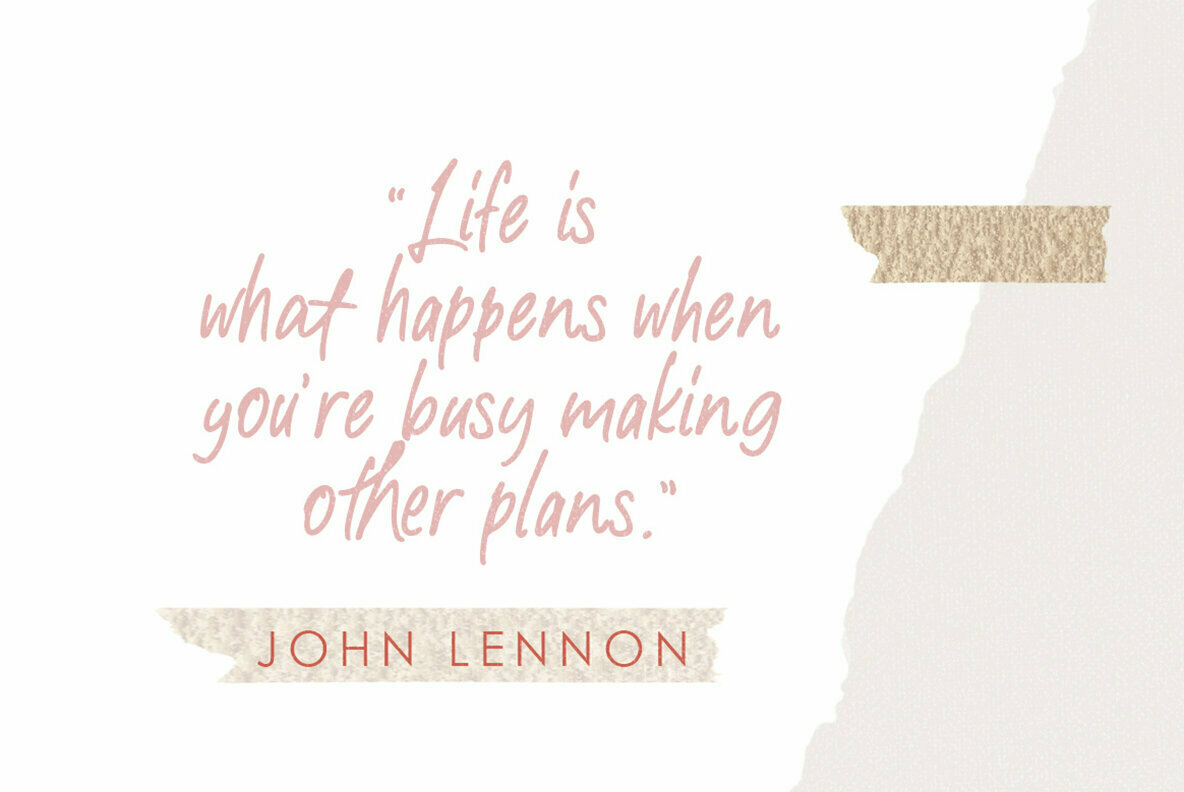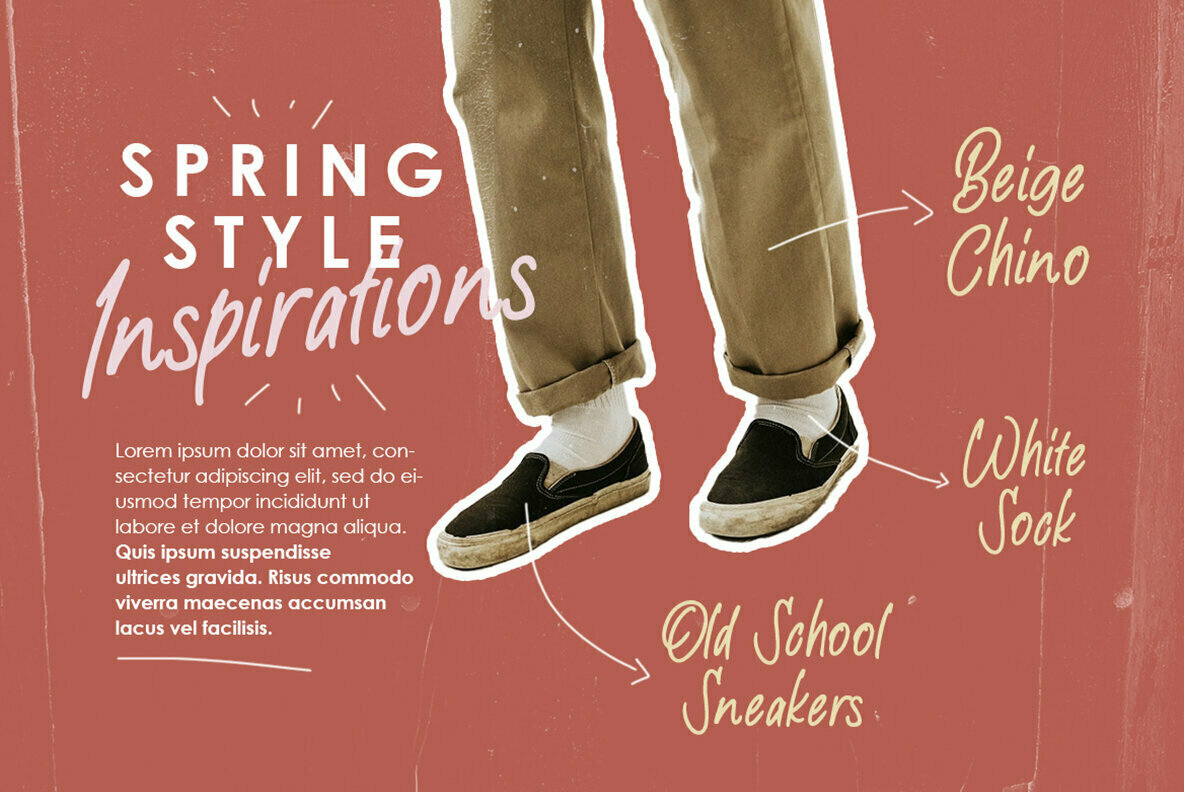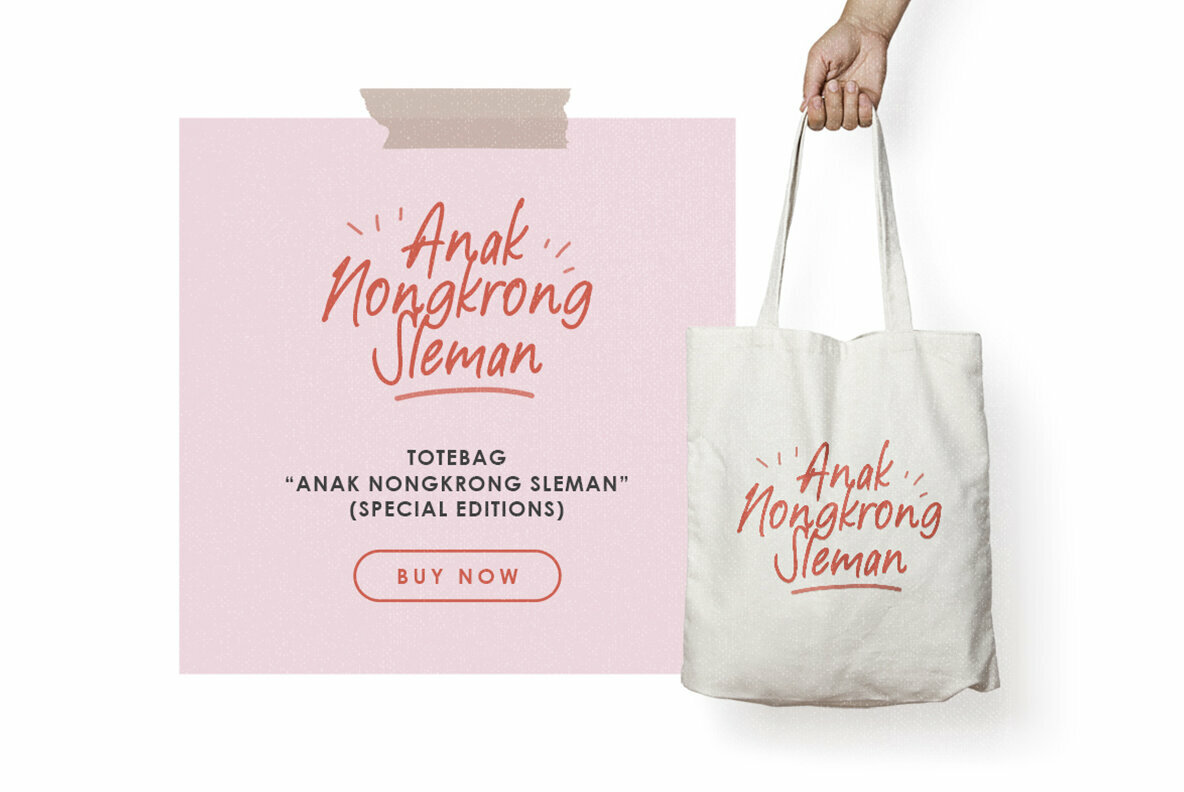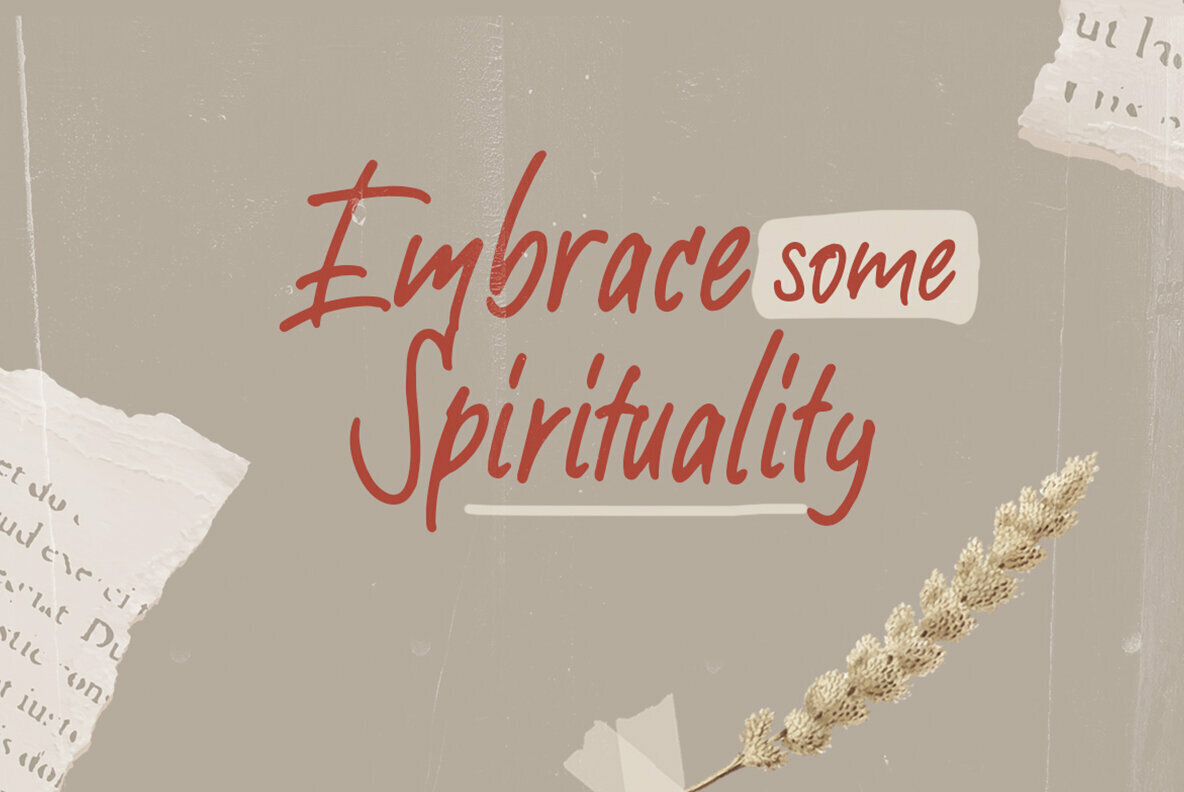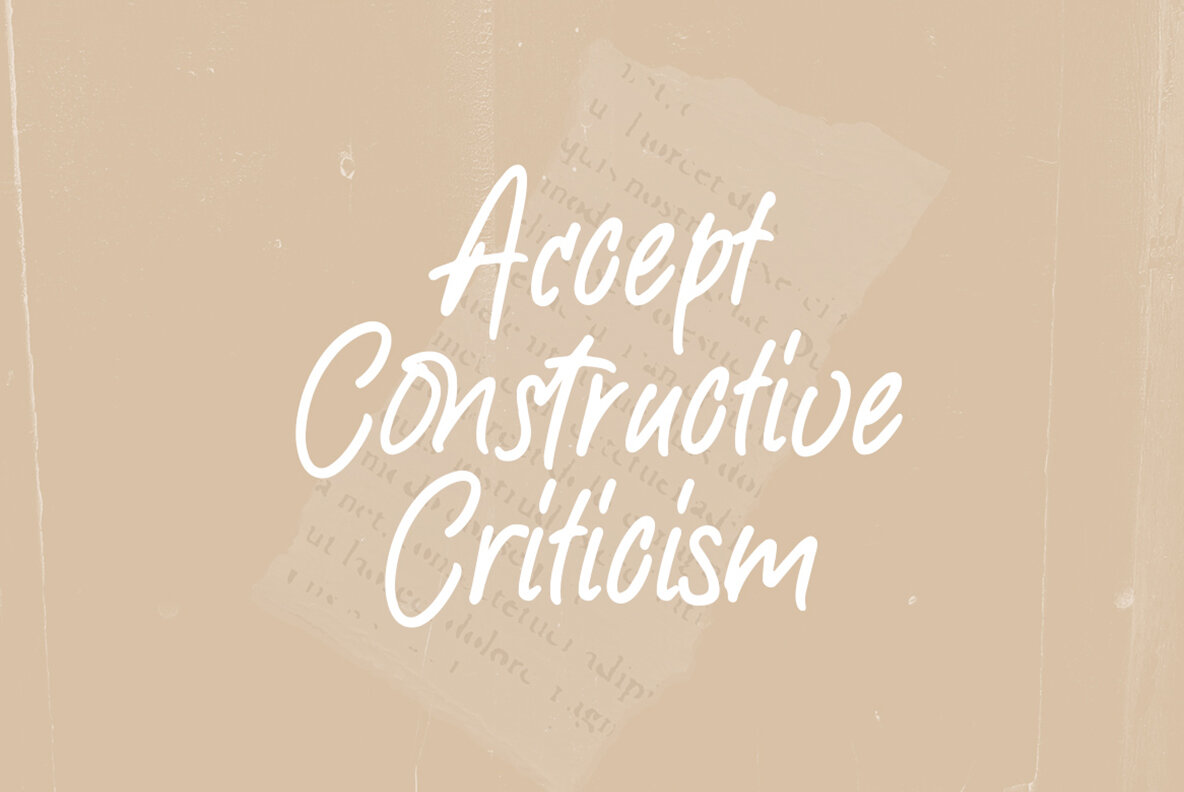
Aesthetic Notes Font
Aesthetic Notes Regular
Introducing Aesthetic Notes! This font is perfect for branding, packaging, logotype, headline, wedding, invitation, quotes, etc.
Features :
- uppercase & lowercase
- numbers and punctuation
- multilingual
- alternates and ligatures